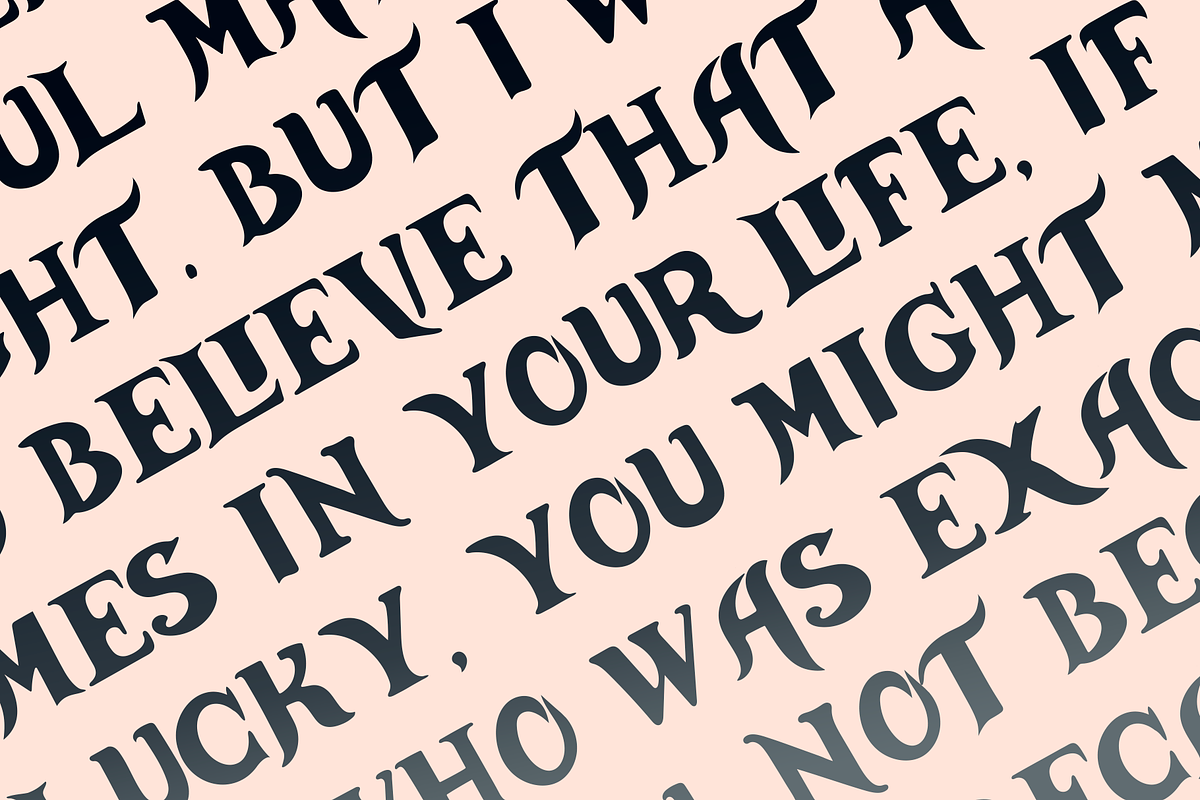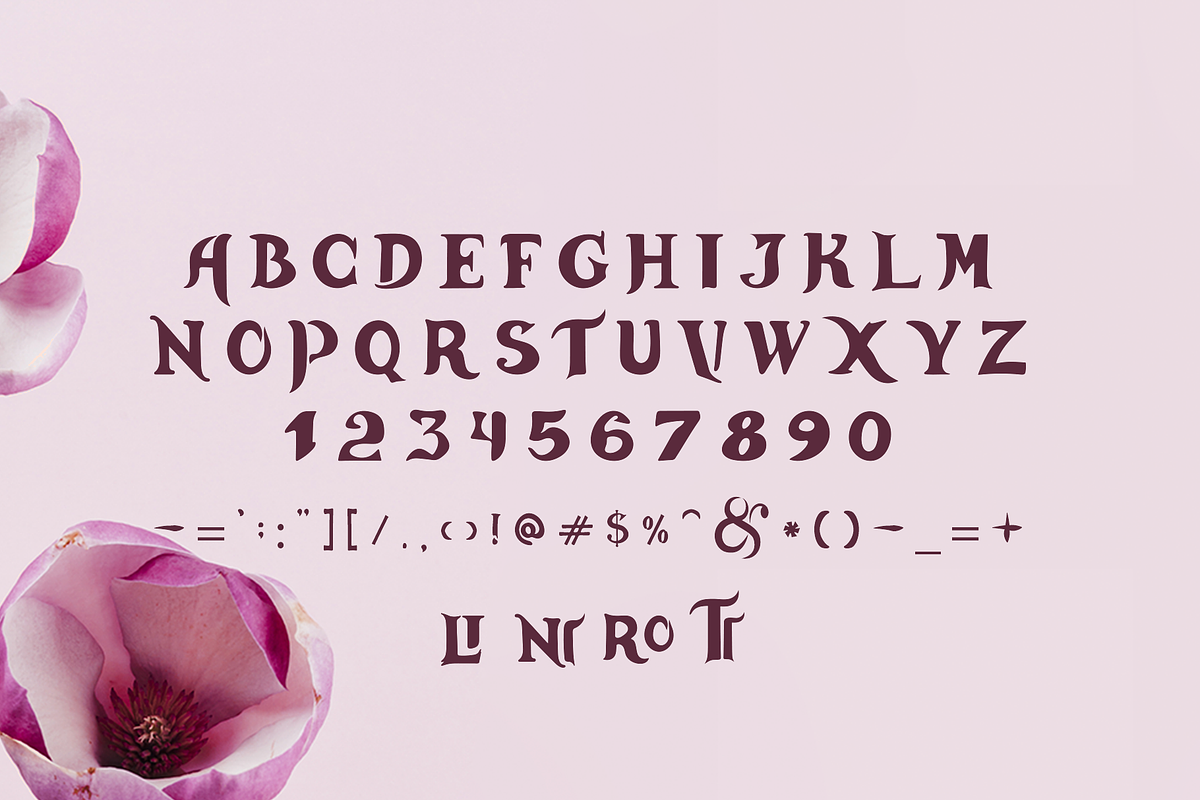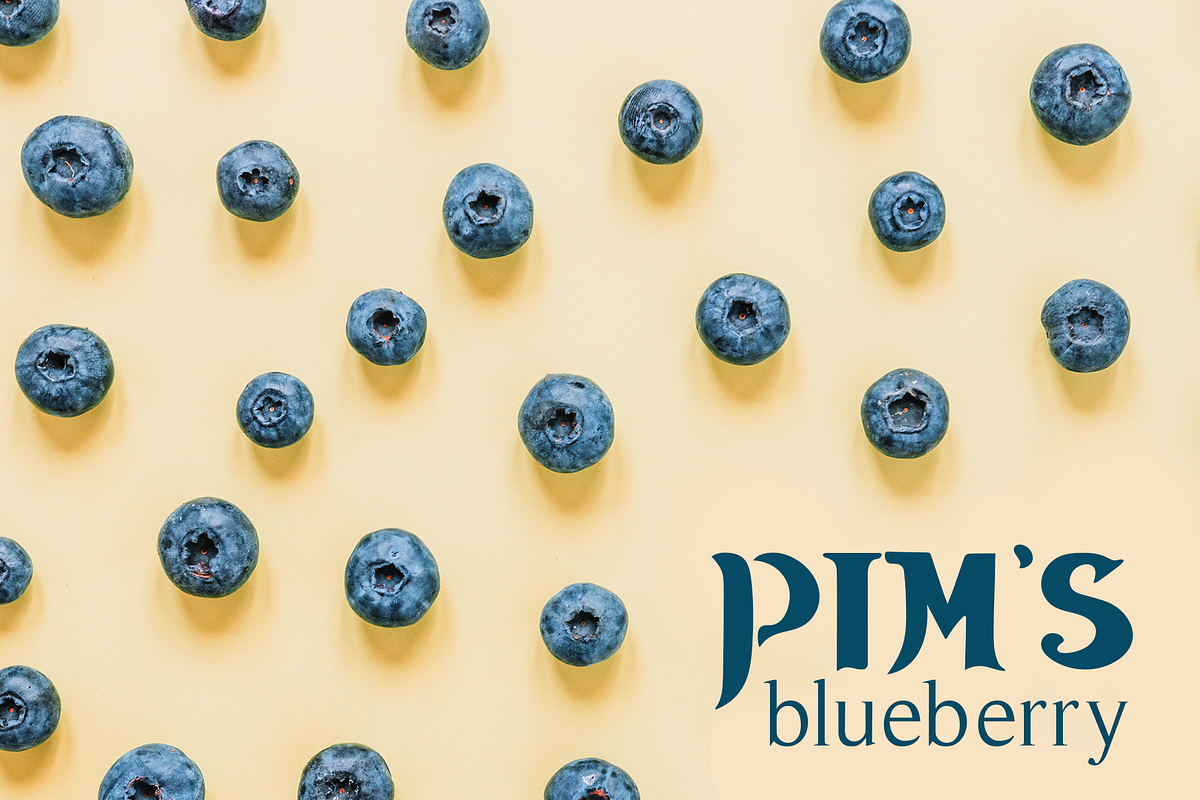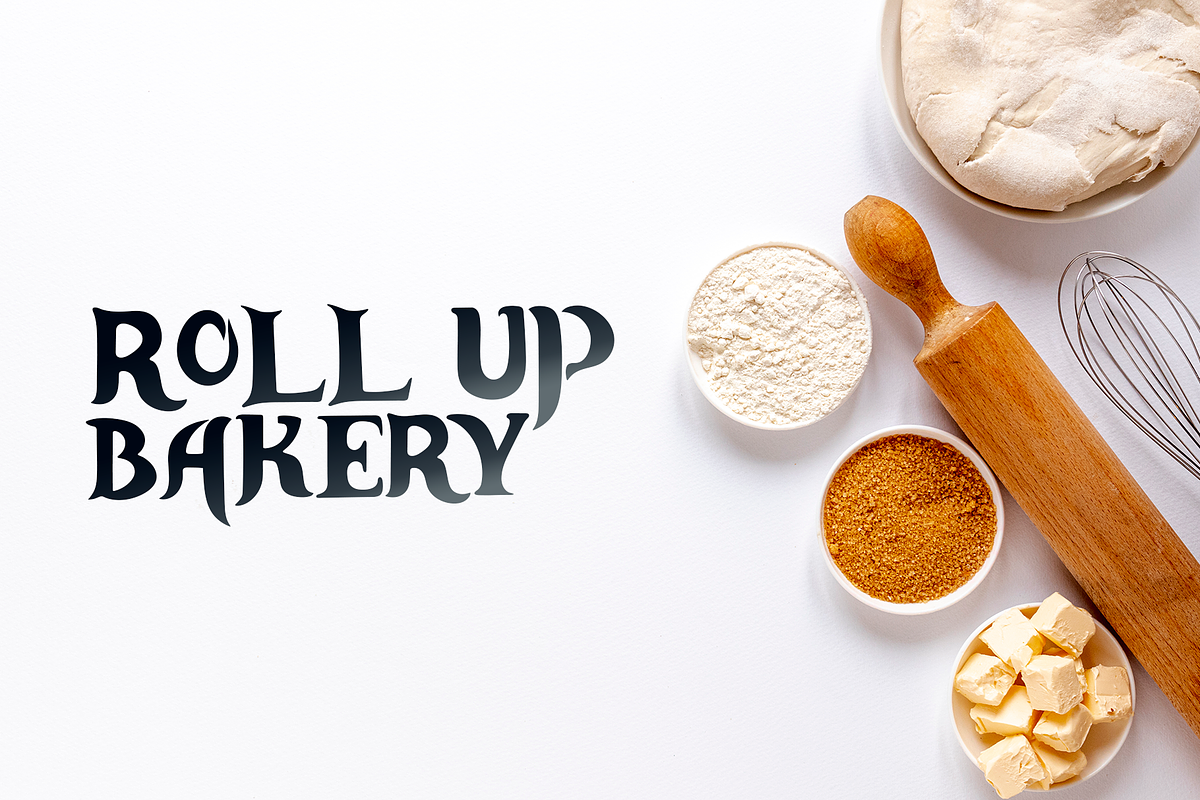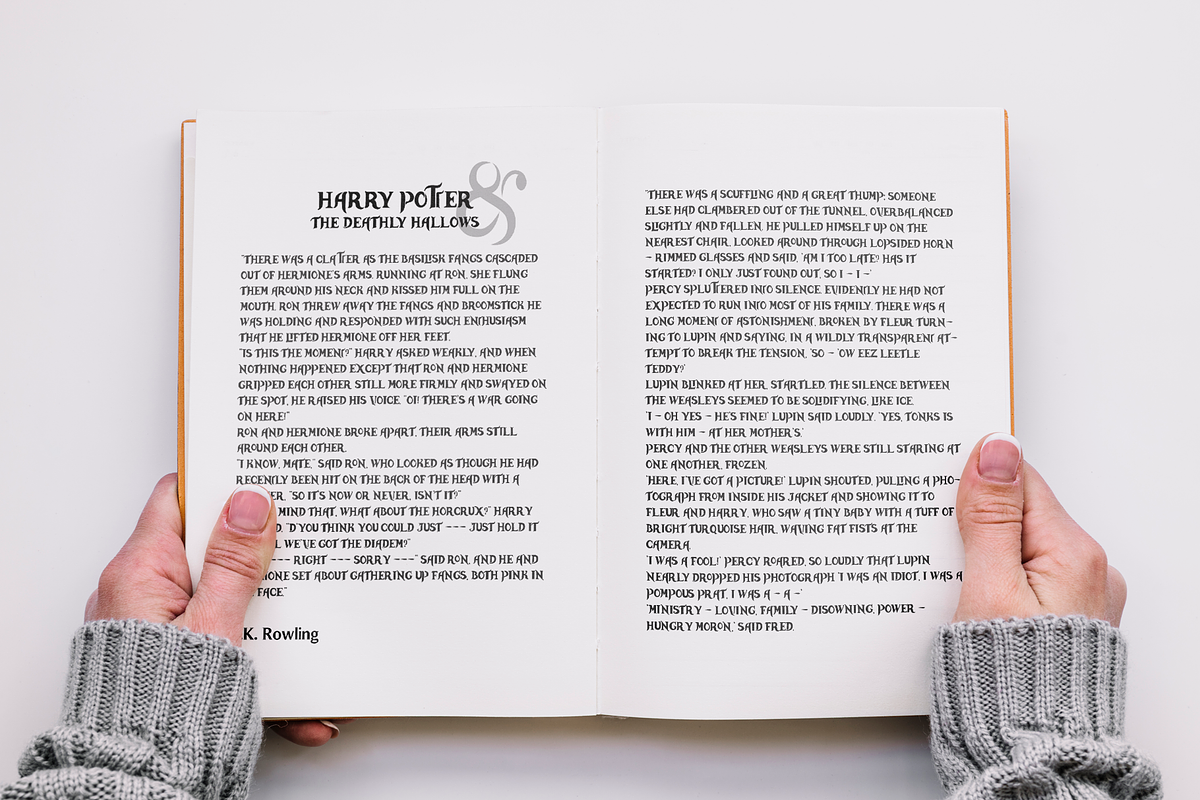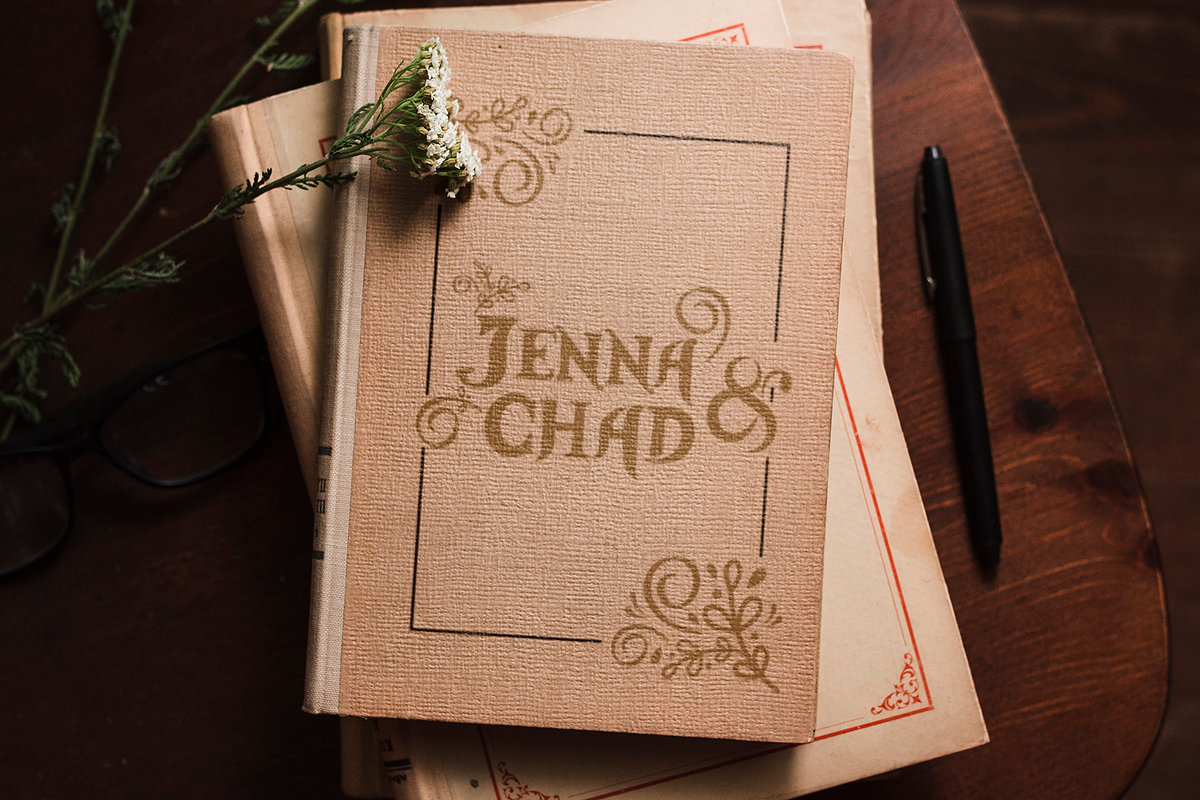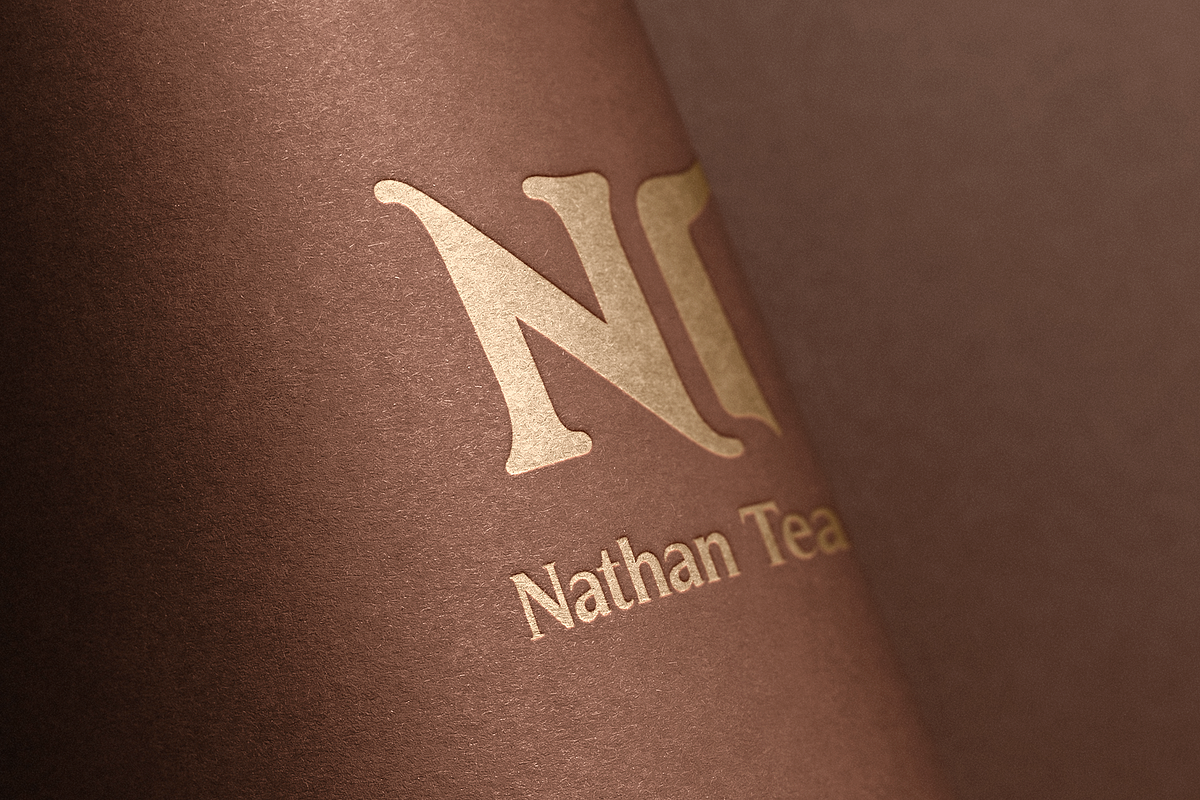
Ancient Tulip - Bold Serif Font
Ancient Tulip - it's a brand new Bold Serif Font with both modern and Vintage curves.
As it has split personality, Ancient Tulip is a very versatile font that can cover a wide range project types, from bold magazine imagery to wedding invitations, to branding and so much more.
Ancient Tulip - Bold Serif Font by Fonteca fits naturally into Branding, posters, packaging, typography.